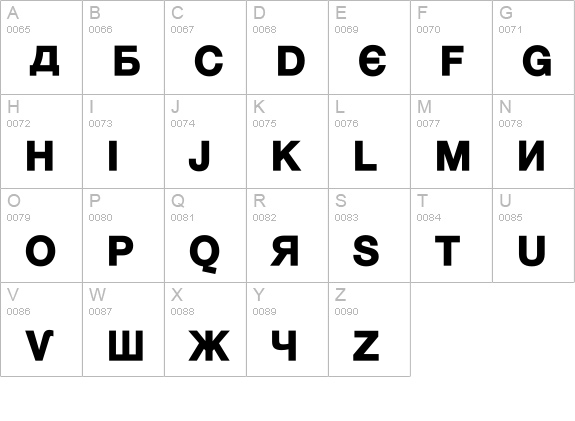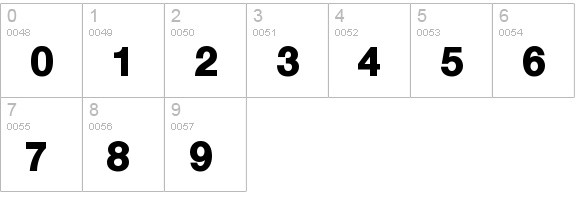
KyrillaSansSerif-Black Font Details
KyrillaSansSerif-Black is a maximum-weight, dramatic variant in the KyrillaSansSerif typeface family \xE2\x80\x94 well suited to maximum-impact headlines, posters, and packaging.
KyrillaSansSerif-Black is a bold and powerful font that demands attention with its strong presence. Designed with a contemporary and edgy style, this font exudes confidence and modernity. The sharp and clean lines of each letter create a sense of precision and professionalism, making it the perfect choice for headlines, titles, and branding materials. With its sleek and bold design, KyrillaSansSerif-Black is sure to make a bold statement in any project. Whether you're designing a striking logo, creating eye-catching advertisements, or crafting impactful headlines, this font will elevate your designs and leave a lasting impression on your audience. What sets KyrillaSansSerif-Black apart is its versatility. Its boldness and legibility make it ideal for both print and digital media, allowing it to shine in a wide range of contexts. From high-end fashion magazines to modern tech websites, this font adapts effortlessly to any design aesthetic. And the best part? KyrillaSansSerif-Black is available for free! You can easily download this font and start using it in your projects right away. Head over to FontsMarket.com to access this amazing font and explore a world of creative possibilities. Don't miss out on the opportunity to enhance your designs with this sleek and powerful typeface. In conclusion, KyrillaSansSerif-Black is a stunning font that combines modernity, boldness, and versatility. Its striking design will captivate your audience and elevate your designs to new heights. And the fact that it is freely available to download at FontsMarket.com makes it an absolute must-have for designers and creatives alike. So why wait? Download KyrillaSansSerif-Black today and unlock a world of possibilities for your next design project.